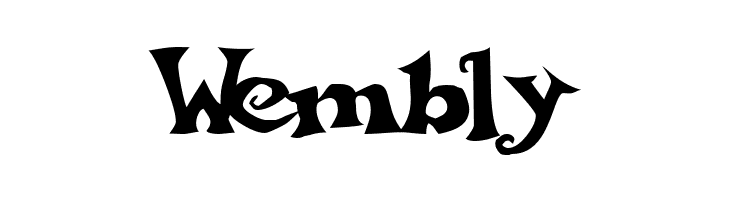
Sixty Four Dollar Question Medium Font
- Font: Sixty Four Dollar Question Medium
- Weight: Medium
A bold, decorative font with playful and whimsical characters.